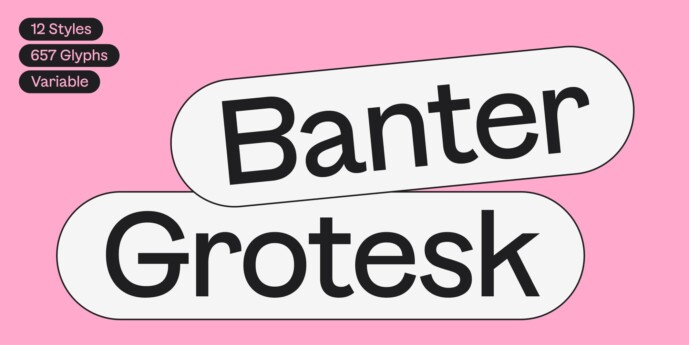
Banter Grotesk Font Family
Banter Grotesk is a playful and quirky sans serif font family, available in 12 styles. True to its name, Banter Grotesk has a rebellious streak and loves to go against the grain. Its proportions break the traditional rules of symmetry, flipping them upside down. This is especially evident in the capitals and numbers, where the tops of the letters often outweigh the bottoms—creating subtle tension and injecting a burst of playful energy into the typeface. The angled terminals further enhance its lively character.
Despite its rebellious nature, Banter Grotesk has a friendly side that makes it both approachable and full of personality. Whether you need something lighthearted or bold, the stylistic alternates allow you to shape the font to fit your vision. The edgy stylistic set, for example, transforms Banter Grotesk from playful to punchy with ease.
But in all seriousness, Banter Grotesk is a robust, modern sans serif typeface with variable weight and slant. It boasts over 650 characters, 11 stylistic sets, and a range of OpenType features, including circled numerals, fractions, ligatures, funny icons and much more.
Perfect for playful branding, visual identities, logo design, web and app interfaces, as well as editorial and print projects, Banter Grotesk adapts to your creative vision with flair and flexibility.